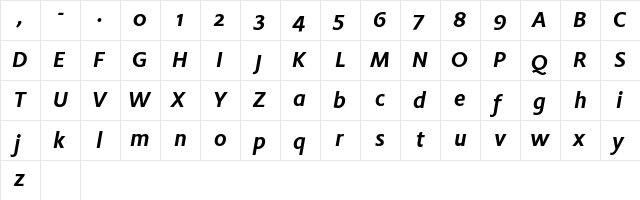
Flex Bold Italic
| Foundry | Paul van der Laan |
| Designer | Paul van der Laan |
Design Context for Flex Typeface
Flex is a composed and adaptable typeface that performs quietly and consistently across a wide range of design contexts. The dynamic lean of this cut emphasises speed and emphasis in any layout. The heavy weight commands attention and anchors typographic hierarchies.
Pro Tip: Try Flex for annotation and caption copy alongside an upright companion — the contrast in angle creates a dynamic but ordered typographic system.